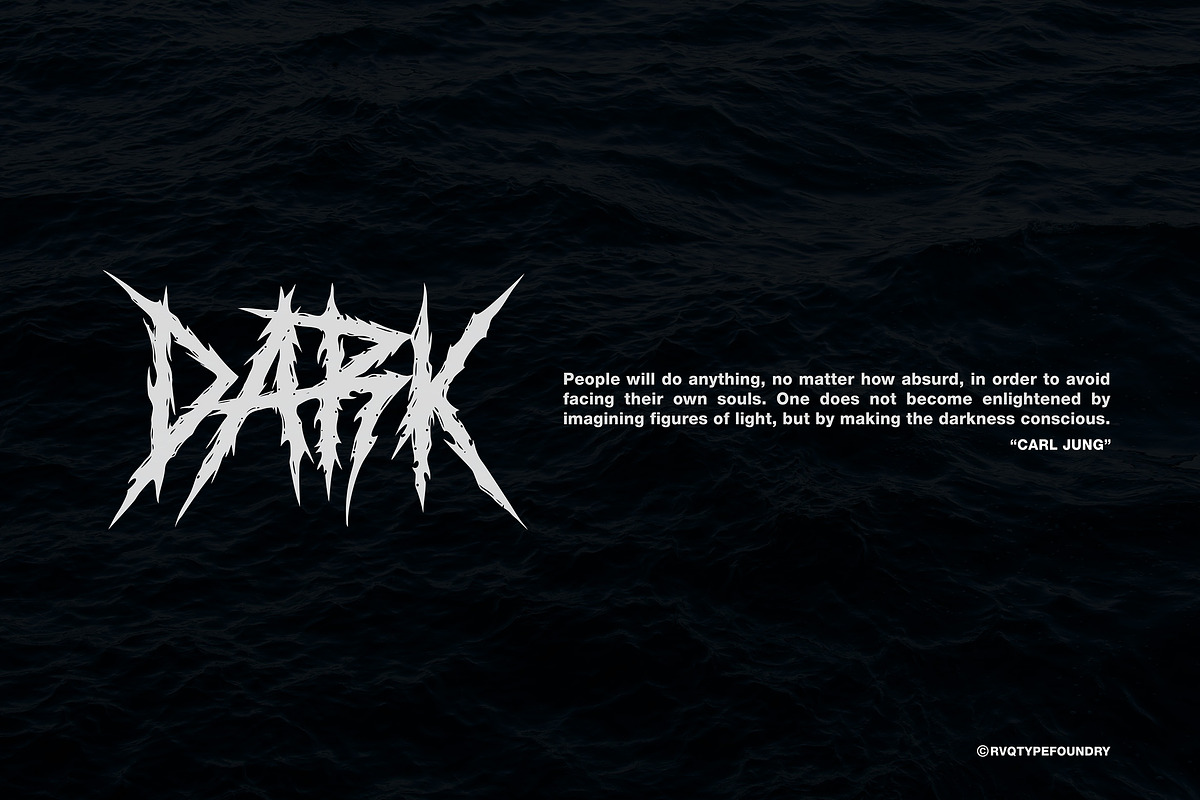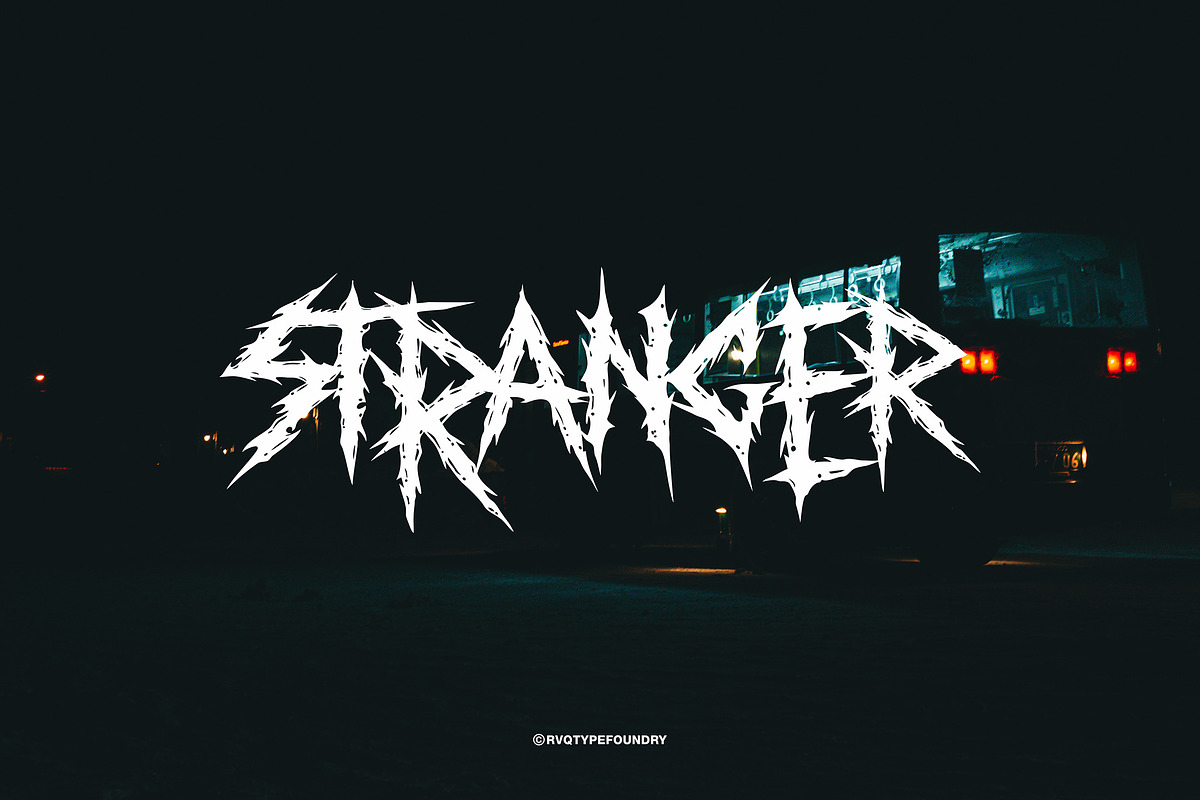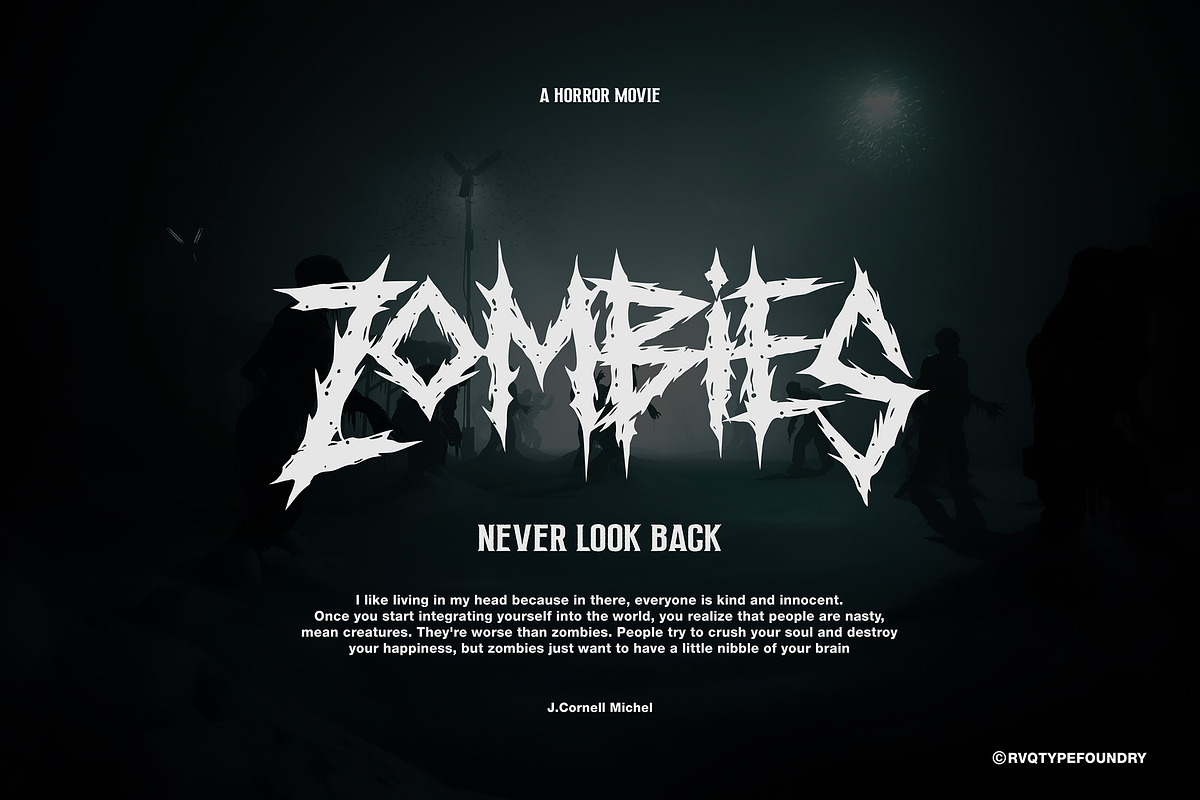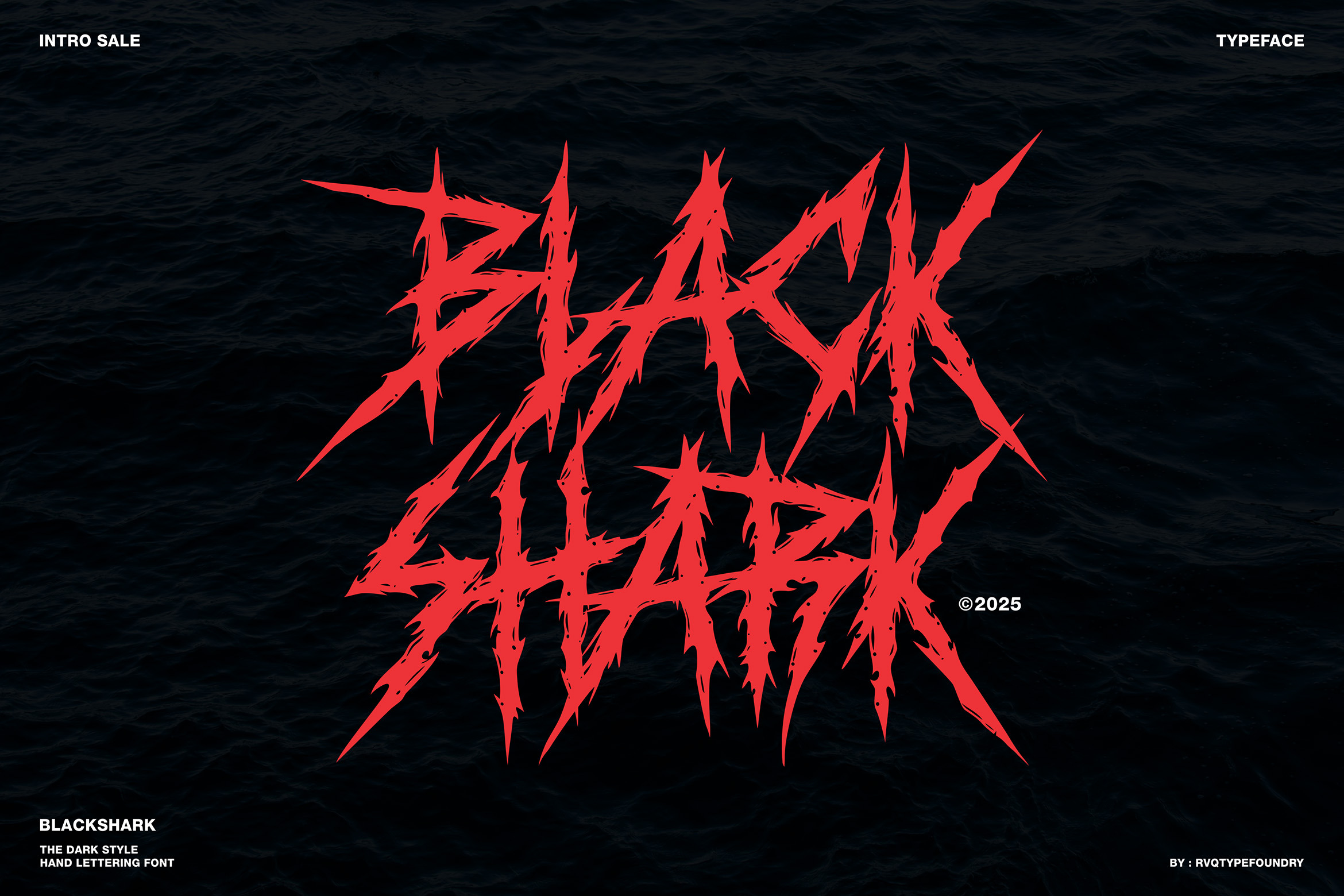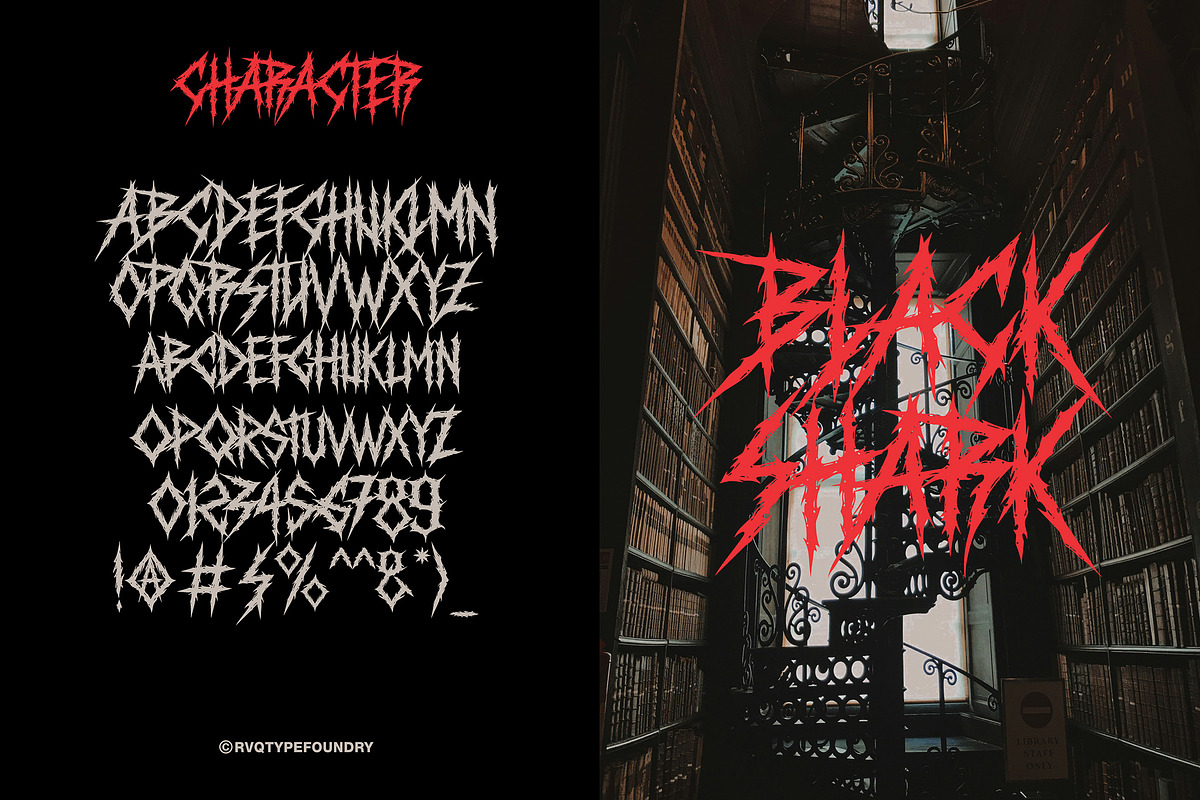
Blackshark typeface
Blackshark is the new font brutal brush from Rvq typefoundry, hand lettering font was created the beautiful combination alternate font. Perfect for : Band, Music, clothing, Branding, Logos,Stationery Design, Invitations, T-shirts, Apparel, Packaging designs, Posters, Typographic Design, and so much more..
- Character Set A-Z
- Stylistic alternate